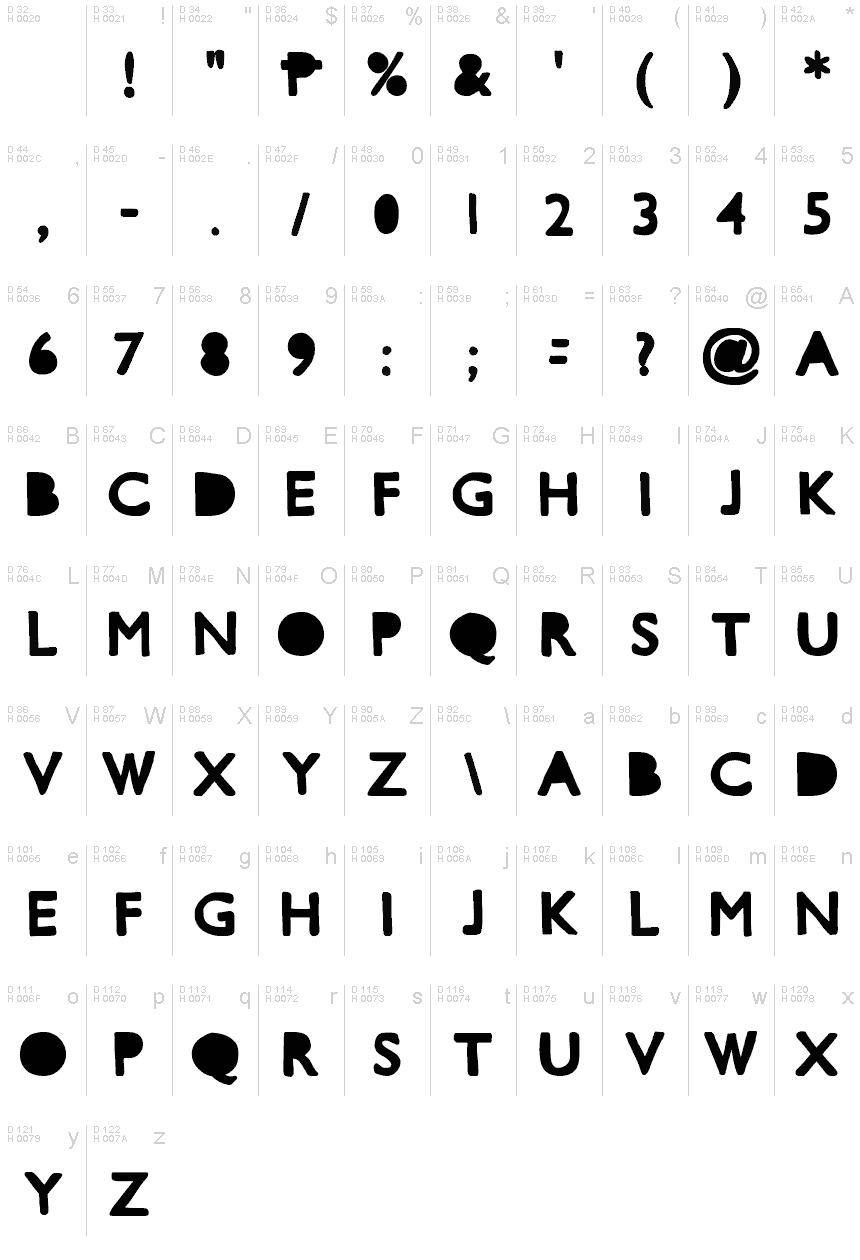
MixCutOuts
Mix Cut Outs is a bold, playful font that exudes a lively, cartoon-inspired aesthetic. With its thick, cut-out letter forms and dynamic strokes, this display font immediately captures attention and radiates a sense of youthful energy. The irregular edges and organic, hand-crafted feel lend a charming, handmade quality, making it an excellent choice for design projects seeking a fun, quirky vibe.
From children's storybooks and packaging to posters, branding, and social media content, Mix Cut Outs versatility allows it to shine in a variety of contexts. Its distinct character and visual impact make it a compelling option for designers seeking to infuse their work with a touch of whimsical, distinctive flair.